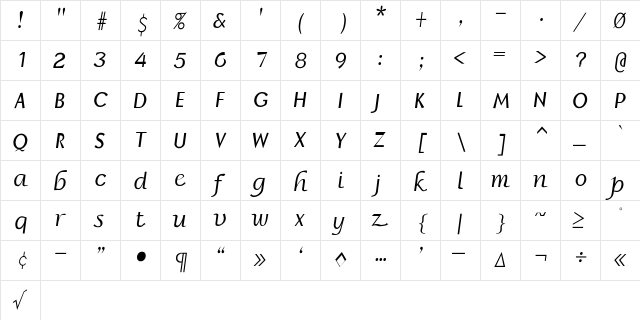
BorzoiReaderIta Regular
Design Context for BorzoiReaderIta Typeface
BorzoiReaderIta offers clean, dependable letterforms without strong stylistic allegiance, making it a practical choice for designers who need flexibility.